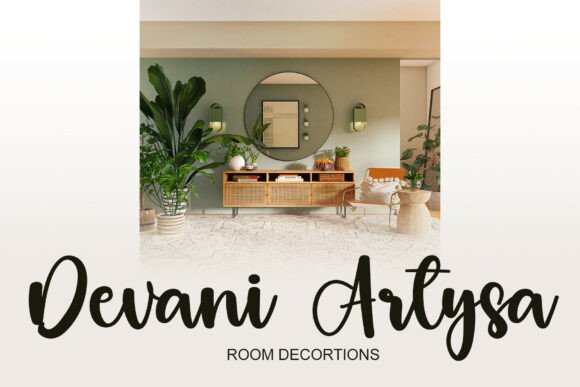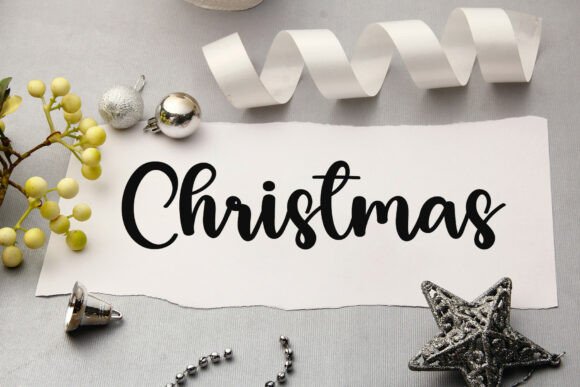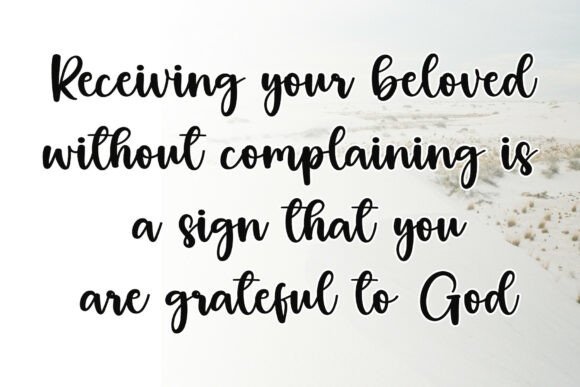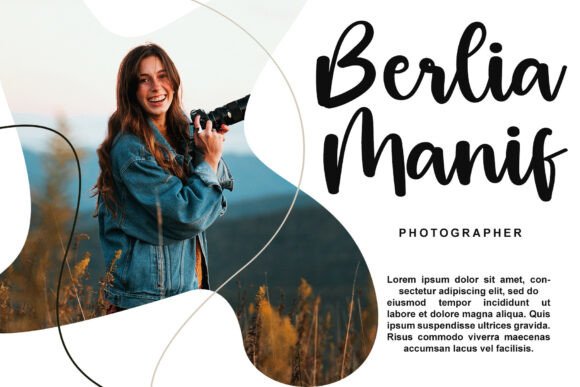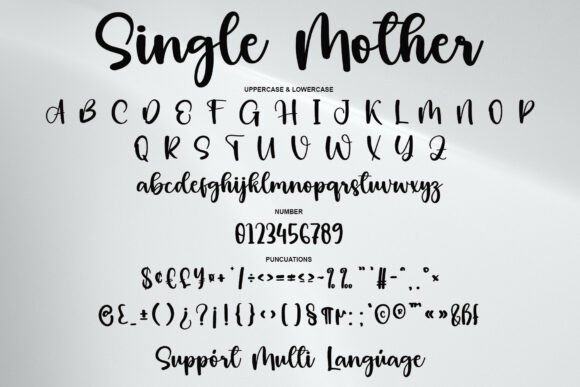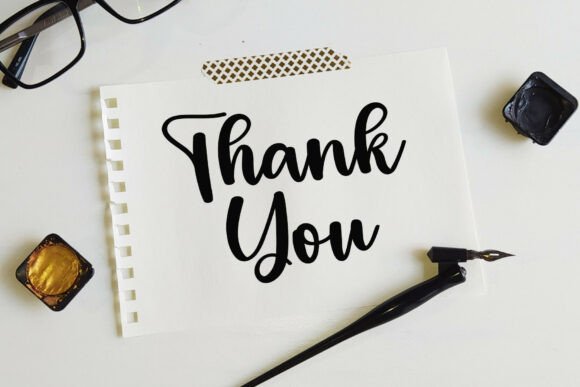
Introduction to Single Mother Font Font
Fonts play a crucial role in design, and the Single Mother Font font is a typeface that brings both character and versatility to any project. Whether you’re working on a branding project, a website, or a print design, the Single Mother Font font offers a unique style that can elevate your work.
Single Mother font is ideal for branding, photo overlays, watermarks, typography, greeting cards, posters, business cards, branding projects, social media posts, magazines, book covers, invitations, weddings, photography, fashion, apparel, letter, stationery, or any tasks that need a signature taste.
Betrayer is a beautiful handwritten font Its distinct and well rounded letters make this font a masterpiece.
Key Features of Single Mother Font Font
Why Choose Single Mother Font Font?
The Single Mother Font font is more than just a typeface – it’s a design tool that helps you communicate your message with style and clarity. Its unique character set and versatile design make it suitable for a wide range of applications, from elegant invitations to bold headlines.
With its carefully crafted letterforms and balanced proportions, the Single Mother Font font ensures readability and visual appeal across all mediums.
What makes Single Mother Font font special?
The Single Mother Font font stands out with its unique design, exceptional readability, and versatility across various design applications.